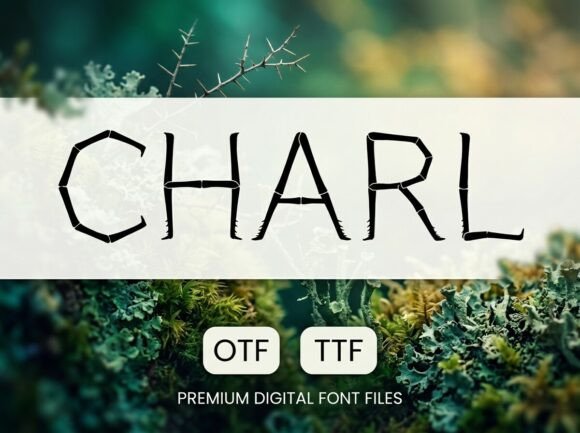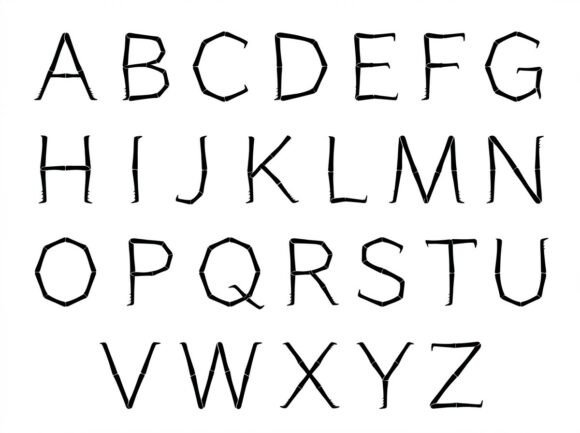
Unleash the Raw Beauty of Anatomical Geometry with Charl Font
In the realm of typography, few fonts manage to capture the essence of natural forms while exuding an air of sophistication and uniqueness. Charl, a hand-drawn display font, achieves just that by drawing inspiration from the intricate structures of insect limbs and skeletal segments. This distinctive typeface is a masterful blend of organic texture and geometric precision, making it an ideal choice for designers seeking to add a touch of raw beauty and scientific intrigue to their projects.
The Inspiration Behind Charl
Charl’s design is rooted in the fascinating world of anatomical geometry, where the natural world meets mathematical precision. The font’s creator sought to capture the essence of insect limbs and skeletal segments, characterized by their articulated structure and segmented forms. This inspiration is evident in Charl’s thin, delicate letterforms, which feature sharp joints and rhythmic, segmented strokes. The result is a font that not only stands out but also tells a story of natural elegance and scientific curiosity.
Key Features of Charl Font
- Unique Display Font: Charl is designed to make a statement. Its spindly silhouette and organic texture set it apart from more traditional typefaces, making it perfect for projects that demand attention and creativity.
- Hand-Drawn Precision: The hand-drawn nature of Charl imbues it with a sense of craftsmanship and precision. Each letterform is carefully crafted to ensure that the font exudes a sense of quality and attention to detail.
- Anatomical Inspiration: The font’s inspiration from insect limbs and skeletal segments gives it a unique, scientific edge. This can be particularly appealing for projects related to biology, science fiction, or any theme that requires a touch of the extraordinary.
- Versatility: Charl’s versatility is one of its standout features. It can be used to create a macabre aesthetic or a sophisticated, naturalistic look, depending on the designer’s vision. This adaptability makes it suitable for a wide range of applications, from dark fantasy book titles to indie film graphics, experimental branding, and edgy editorial headers.
Applications of Charl Font
Charl’s distinctive characteristics make it an excellent choice for various design projects. Here are some of the areas where Charl truly shines:
- Dark Fantasy Book Titles: The font’s eerie, yet elegant, appearance is perfect for dark fantasy book covers, adding a layer of mystery and allure.
- Indie Film Graphics: Charl can add a unique, eye-catching element to indie film posters and promotional materials, setting the tone for a movie that’s a little out of the ordinary.
- Experimental Branding: For brands looking to stand out and make a statement, Charl offers a fresh, unconventional aesthetic that can help a brand appear innovative and bold.
- Edgy Editorial Headers: In editorial design, Charl can be used to create headers that are both attention-grabbing and sophisticated, perfect for articles or features that require a bit of edge.
Why Choose Charl Font?
Choosing Charl for your design project means opting for a font that is not only visually striking but also rich in character and inspiration. Here are a few reasons why designers and crafters might prefer Charl:
- Unique Aesthetic: Charl offers a one-of-a-kind aesthetic that can elevate a design project from ordinary to extraordinary.
- High-Concept Appeal: The font’s scientific inspiration and anatomical accuracy give it a high-concept appeal that can add depth and intrigue to a design.
- Flexibility: Whether you’re aiming for a delicate, sophisticated look or something more avant-garde, Charl’s versatility ensures it can meet your design needs.
Charl font is a remarkable addition to the world of typography, offering a unique blend of natural inspiration, geometric precision, and artistic expression. Its distinctive appearance, rooted in the articulated structures of insect limbs and skeletal segments, makes it an extraordinary choice for designers looking to infuse their projects with a sense of raw beauty and scientific curiosity. Whether you’re working on a dark fantasy novel, an indie film, experimental branding, or edgy editorial content, Charl delivers a sense of handcrafted precision and unyielding creative character that is sure to captivate audiences and set your work apart.